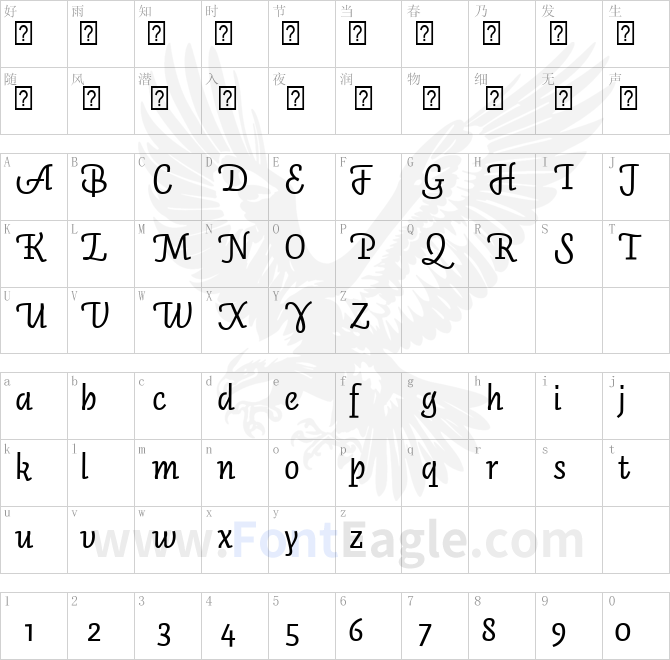
- Font name:Auto 3
- Font Subfamily ID:Underware: Auto 3 Italic: 2004
- Font Full Name:Auto3-Italic
- Font Version:Version 1.110;PS 001.110;hotconv 1.0.38;2004
- Postscript:Auto3-Italic